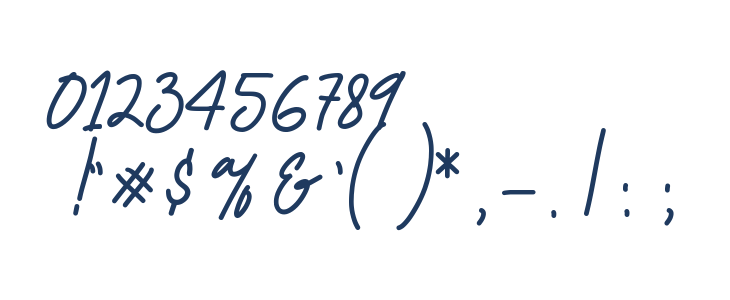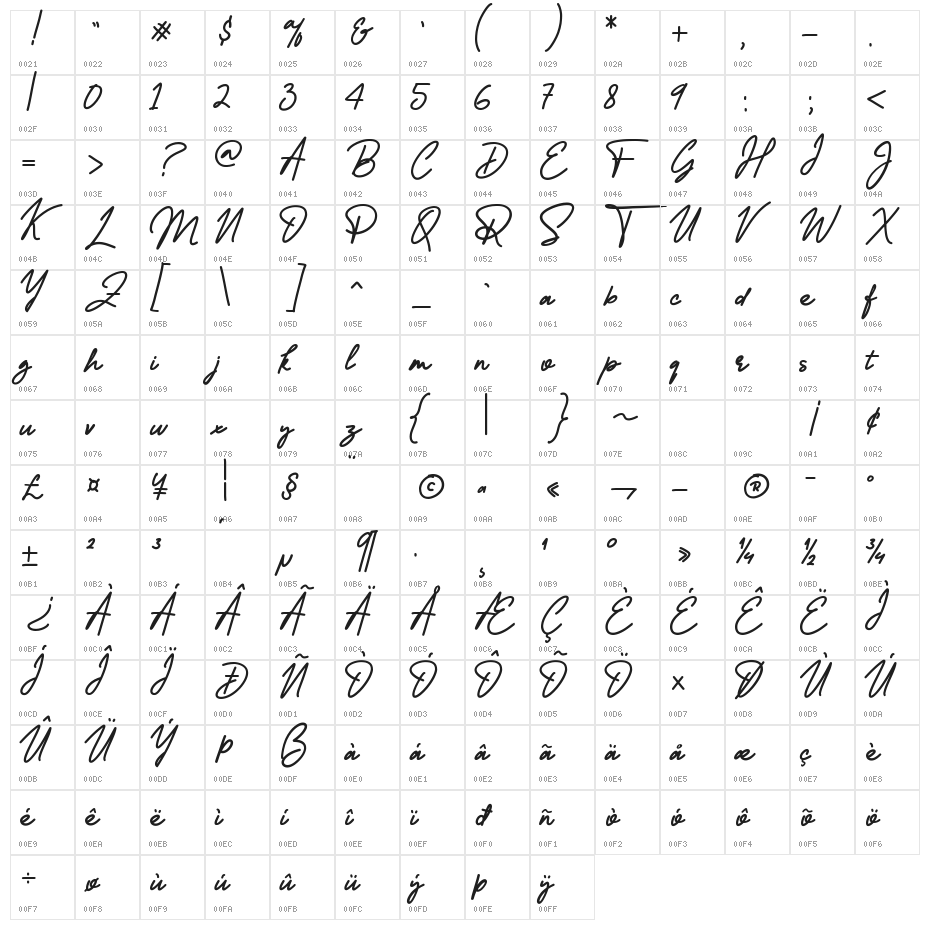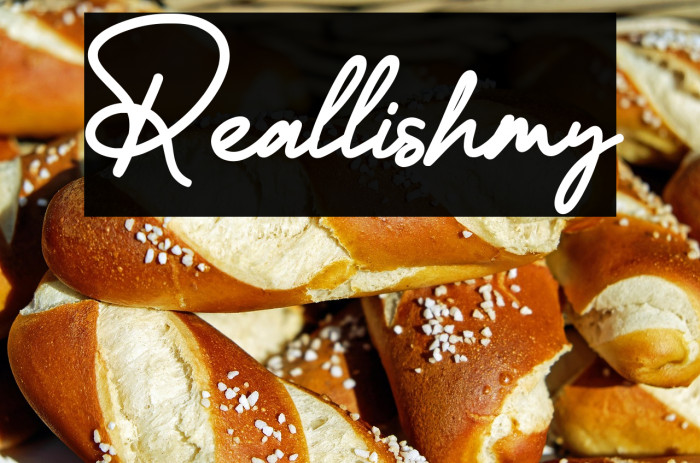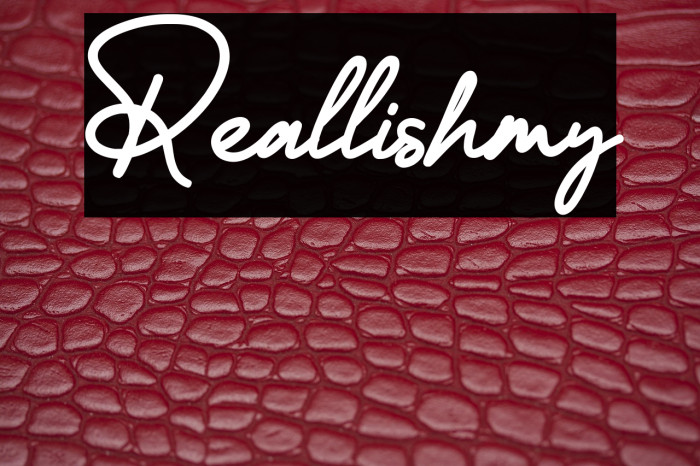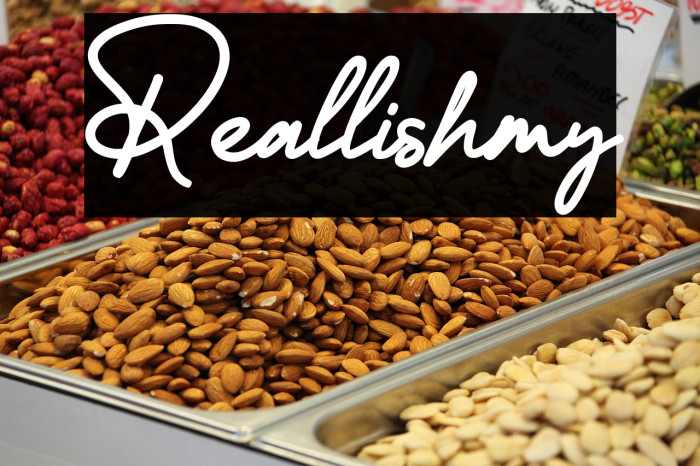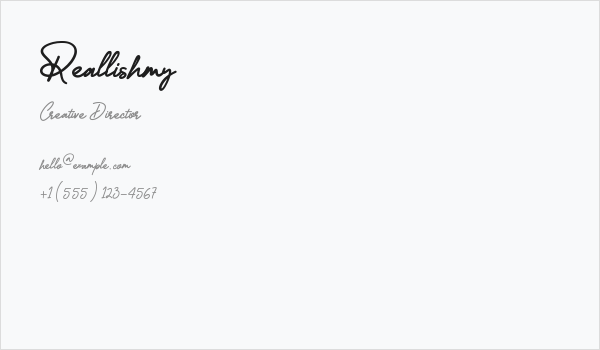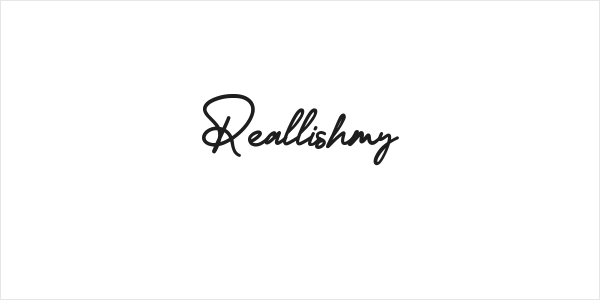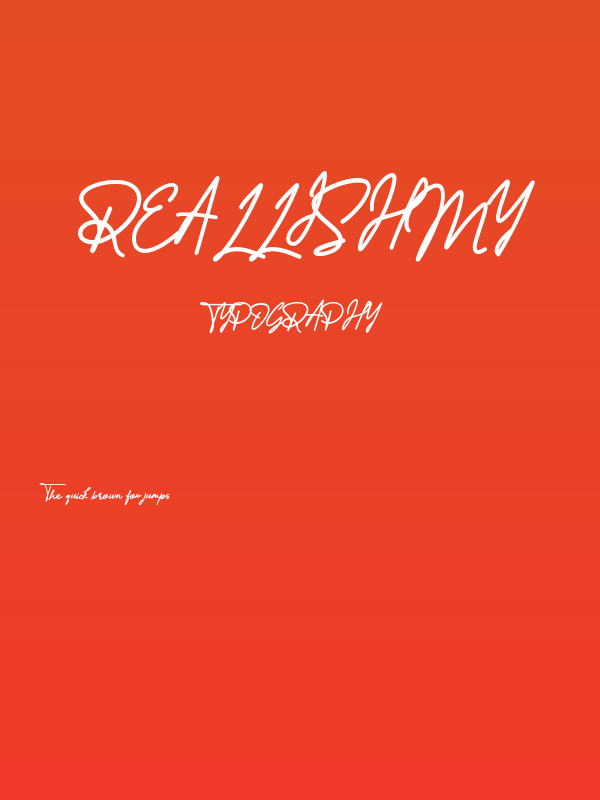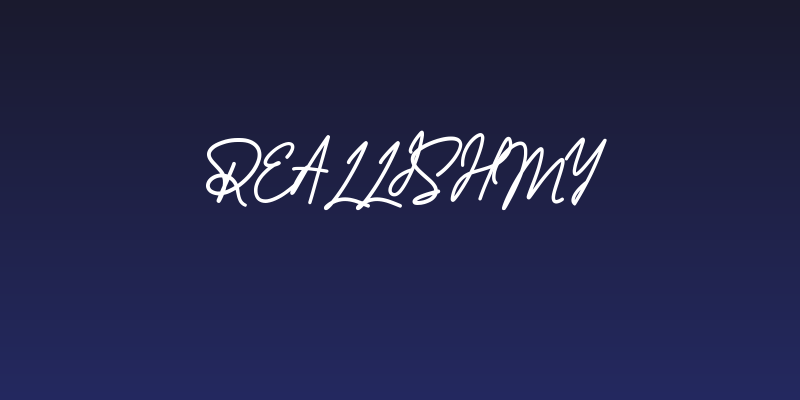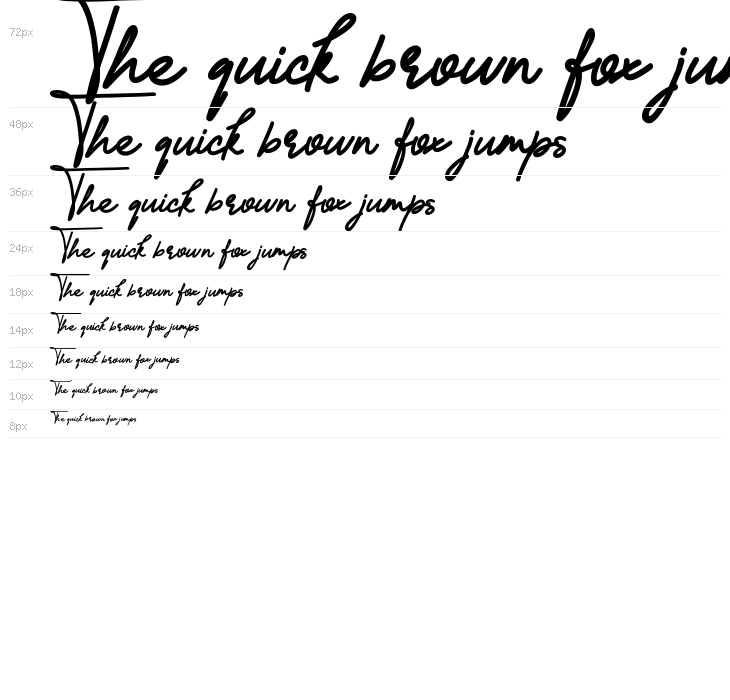
Reallishmy Font
Reallishmy Description
This font exudes a lively and dynamic energy with its fluid, cursive style. The letters are interconnected, creating a seamless flow that mimics natural handwriting. The uppercase letters are bold and expressive, while the lowercase letters maintain a consistent rhythm. Numbers are clear and well-defined, matching the overall cursive aesthetic. Special characters are integrated smoothly, maintaining the font's cohesive look. The strokes are of medium thickness, providing a balanced contrast that enhances readability without sacrificing style.
| Proposed Projects | Ideal for wedding invitations, personal branding, greeting cards, and artistic projects requiring a personal touch. |